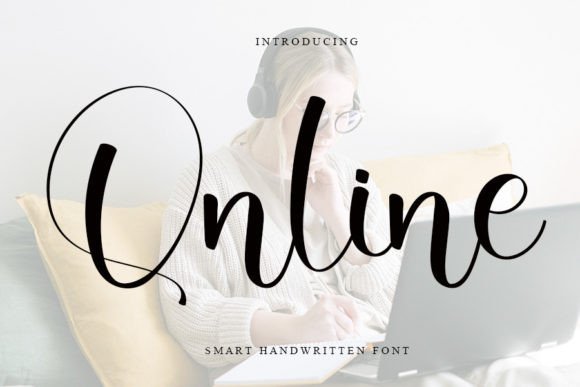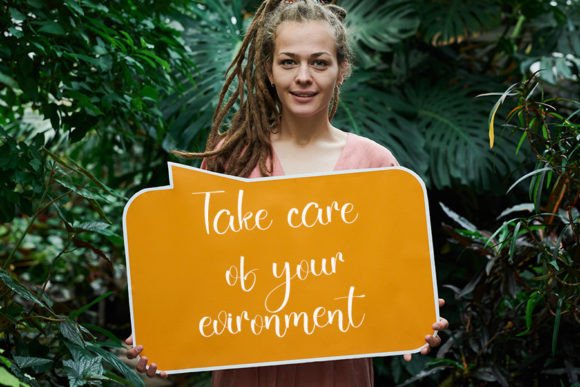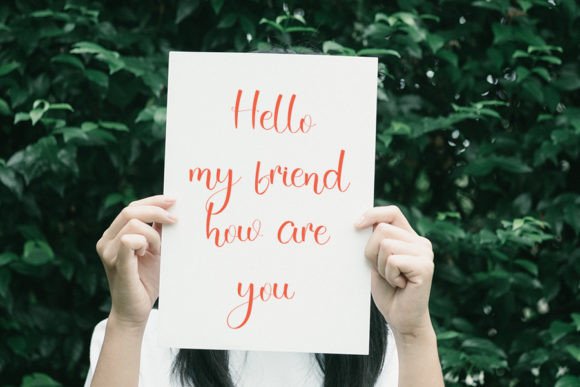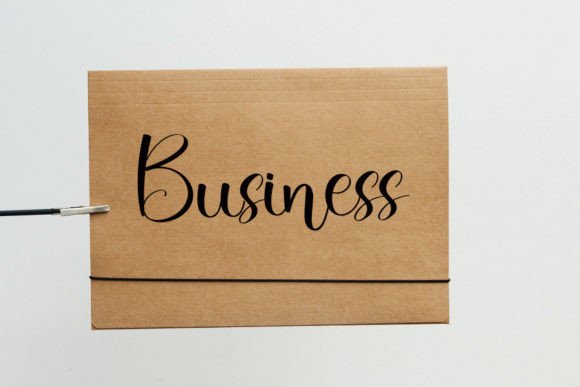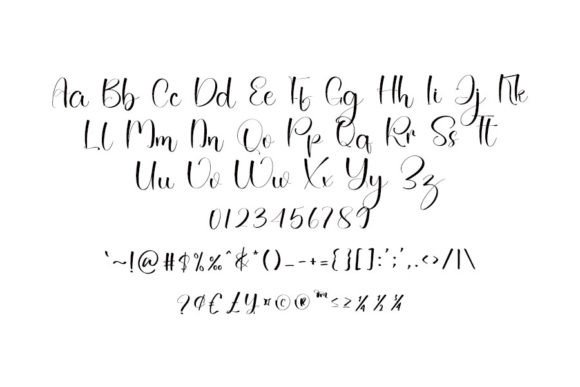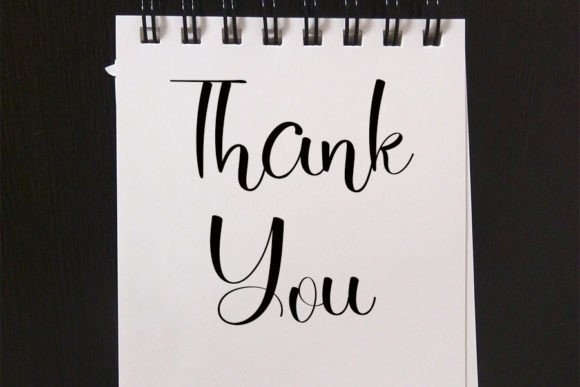
Online Font
What Is Online Font?
Online Font is a clean and elegant handwritten script created to add sophistication, warmth, and authenticity to any design. Each letter is carefully crafted with smooth, refined lines that balance classic and modern style. Whether you want to create something professional, stylish, or heartfelt, Online delivers a polished look that elevates your work.
Its neat composition and timeless feel make it an essential font for designers who appreciate clarity and elegance.
Online Font is versatile and adapts effortlessly to many creative applications. For example, it’s perfect for wedding invitations and event stationery. The graceful, flowing letterforms help you set a refined, romantic tone for any occasion.
Logos and branding also benefit from Online’s distinctive look. From artisan products and boutiques to creative services, this font creates a memorable visual identity that feels genuine and upscale.
Greeting cards, thank-you notes, and personal messages are more engaging with Online’s warm handwritten style. It helps your words feel personal and meaningful.
Digital designs like social media graphics, blog headers, and website banners shine with Online’s clean, elegant flow. Your content will instantly feel more professional and approachable.
Even product packaging and labels look more sophisticated when you use Online’s timeless script.
Why Should You Choose Online Font?
One of Online’s biggest strengths is its readability. Despite its elegant curves and handwritten details, every letter remains clear and legible at any size. From small labels to large headlines, your text will always look crisp and professional.
The font pairs beautifully with minimalist serif or sans-serif typefaces, so you can build balanced, modern layouts effortlessly.
Designers love that Online looks polished out of the box, saving time and ensuring every project feels thoughtfully crafted.
Online Font adds sophistication, personality, and warmth to any project. Its balanced, smooth strokes create an emotional connection that helps your work stand out.
Even simple layouts gain character and elegance when you use Online. Whether you’re designing a wedding suite, creating a logo, or crafting social content, this font elevates your visuals effortlessly.
Using a premium handwritten script shows your dedication to quality and detail. Clients and customers will notice and appreciate this care, helping you build trust and stand apart.
Online Font is more than just a stylish script—it’s a versatile design tool that helps you communicate ideas with clarity and grace. From invitations and branding to packaging and digital content, this font adapts seamlessly to any project and leaves a lasting impression.